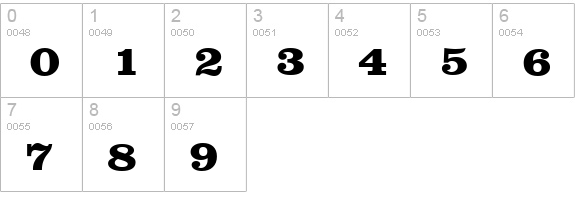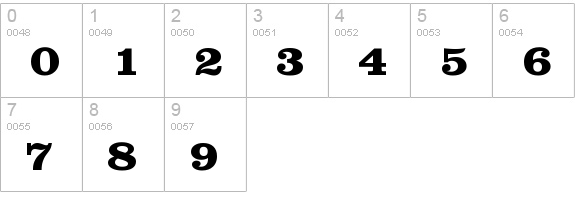
ClareSerial-Heavy Bold Font Details
ClareSerial-Heavy Bold is a heavy, high-impact variant in the ClareSerial typeface family \xE2\x80\x94 well suited to high-impact headlines, posters, and display advertising.
ClareSerial-Heavy Bold font is a striking and bold typeface that demands attention with its strong and impactful appearance. Its thick, heavy strokes give it a commanding presence on any page, making it perfect for headlines, titles, and other display purposes. The sleek and modern design of ClareSerial-Heavy Bold font exudes confidence and professionalism, making it ideal for a wide range of design projects. What's even better is that ClareSerial-Heavy Bold font is available for free download at FontsMarket.com. This means that you can easily access this powerful font and use it in your projects without any cost. Whether you are designing a poster, creating a logo, or working on a website, ClareSerial-Heavy Bold font will elevate your design with its bold and impactful style. Download it today and make your text stand out with this impressive and eye-catching font.